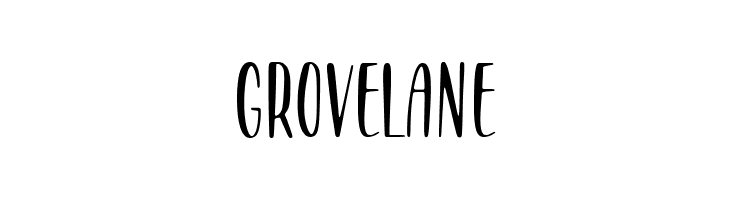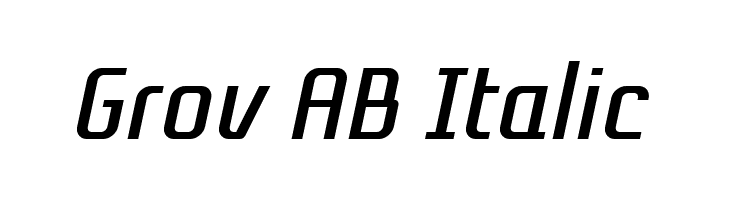
( John K. Barrow )
A playful, hand-drawn style font with bold, organic strokes.
A whimsical and decorative font with tall, slender uppercase letters and unique embellishments.
A modern, geometric font with clean lines and rounded edges.
A bold, modern font with geometric influences and consistent thickness.
A bold, italicized font with angular lines and a modern, dynamic style.
A modern, italicized font with sleek, consistent strokes and a dynamic appearance.
A playful, modern handwritten font with tall, narrow characters and smooth strokes.
A bold, geometric sans-serif font with a modern and structured design.
( Fonts by Cayman Roader )
A distressed and grungy font with splattered, irregular edges for a bold, artistic look.